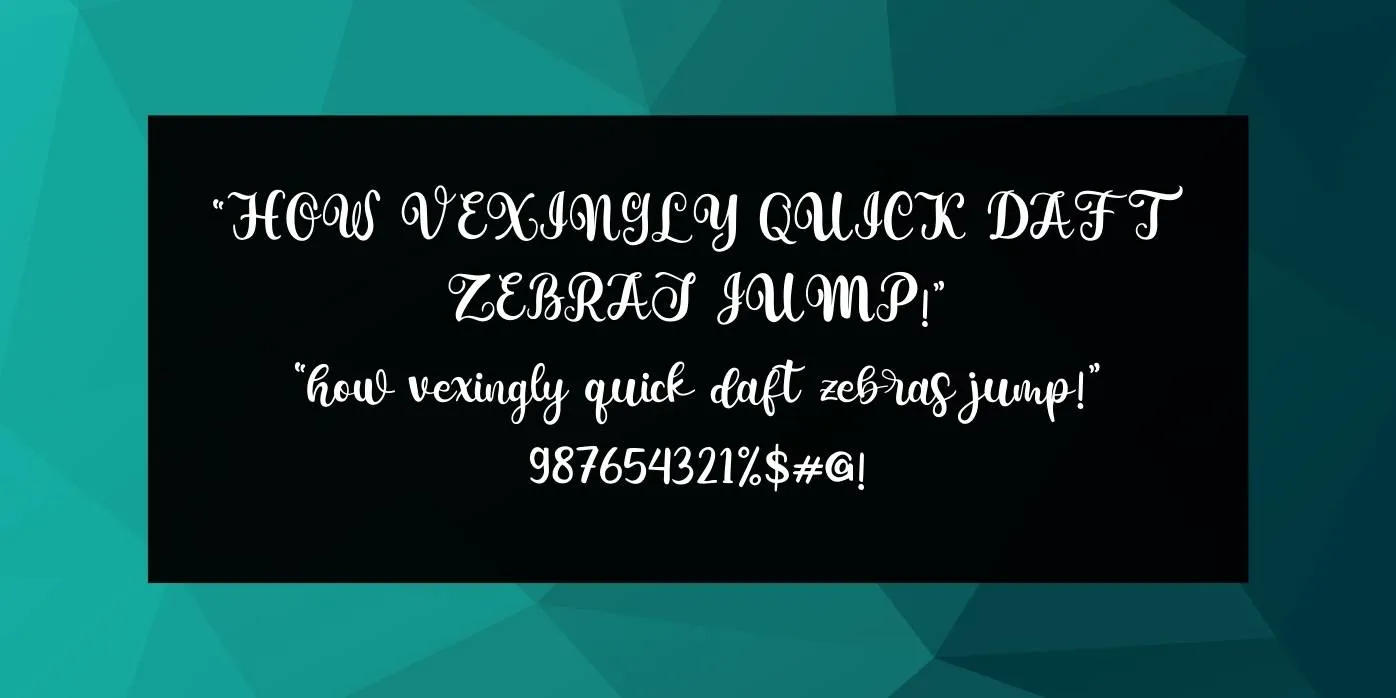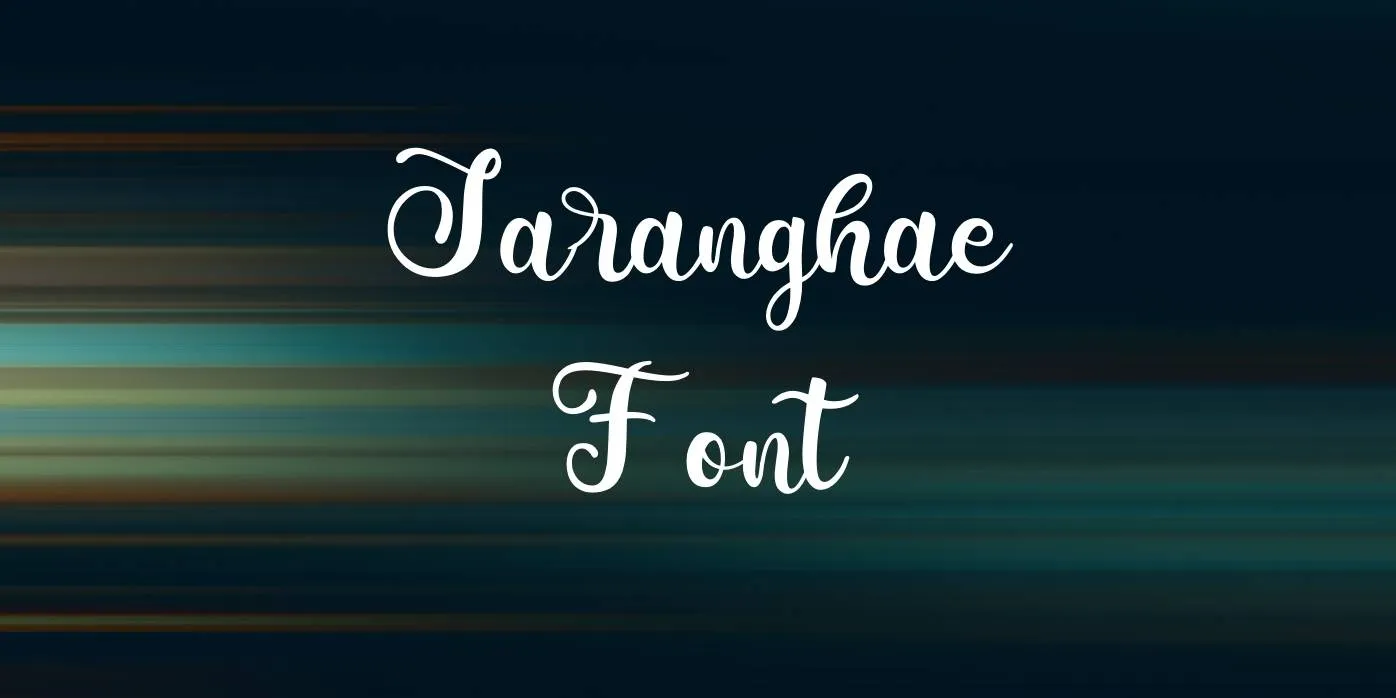
Saranghae Font
Saranghae Font is a popular calligraphy font that is often used in advertising and graphic design. This Font was created by designer Kim Jung-soo in 2001. The Font family includes four different styles: regular, bold, italic, and light. This Font was inspired by the Korean calligraphy style known as hangeul.
The name “Saranghae” means “love” in Korean. This font is available in both TrueType and OpenType formats. This typeface and comic sans ms font have many matching personalities and the same characteristics because of their same height and large characters. This font is also helpful for any type of logo, presentation, or any other projects that you make use this font in photoshop, illustrator, Canva, and Word.